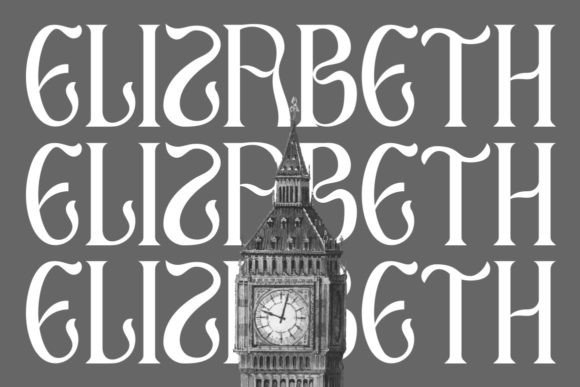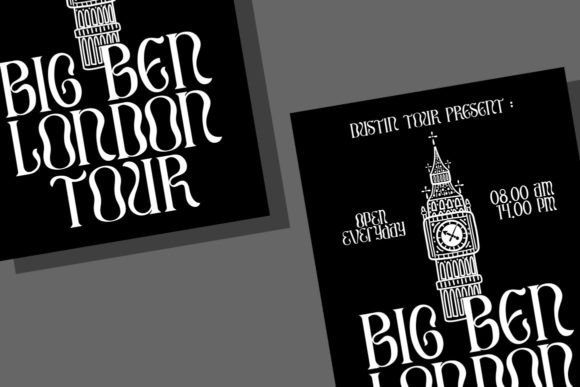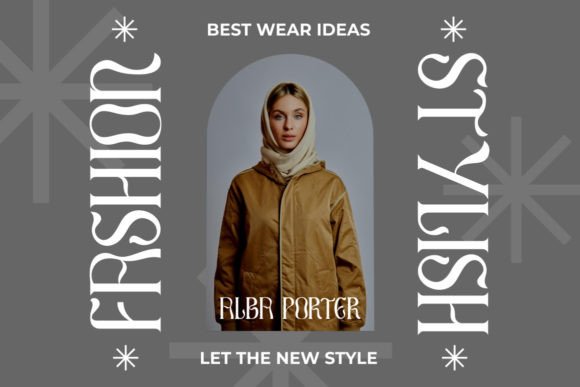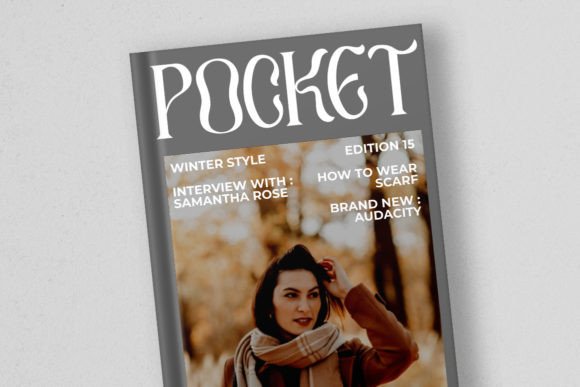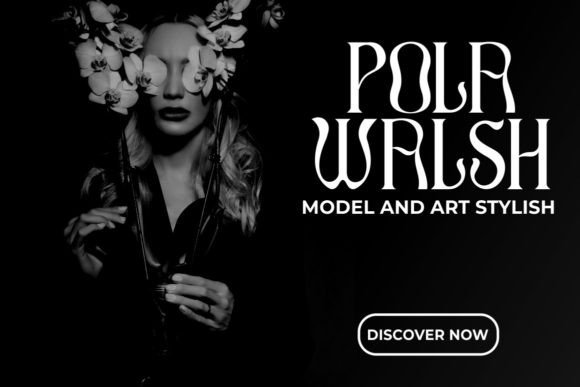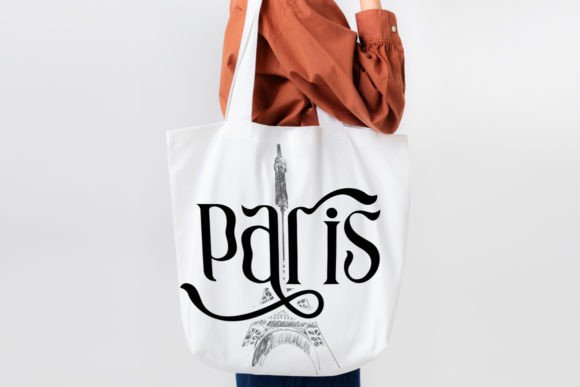
Introducing Carey Castle Font: Elevate Your Designs with Luxury and Style
Are you looking for a font that can add a touch of luxury and sophistication to your designs? Look no further than Carey Castle Font. This stylish and elegant display font is perfect for designers, crafters, and anyone looking to take their creations to the next level. With its versatility and ease of use, Carey Castle Font is ideal for a wide range of projects, from books and magazine covers to social media posts and invitations.
What Makes Carey Castle Font Special?
Carey Castle Font is a standout font that offers a unique combination of style, luxury, and functionality. Here are just a few features that make it a must-have for designers and crafters:
- Stylish and Luxurious Design: Carey Castle Font boasts a sleek and sophisticated design that’s perfect for creating high-end visuals. Its elegant lines and curves make it ideal for designs that require a touch of luxury and refinement.
- Versatile and Multi-Purpose: Whether you’re working on a book, magazine cover, social media post, or invitation, Carey Castle Font is the perfect choice. Its versatility makes it easy to use across different mediums and platforms.
- PUA Encoded for Easy Access: Carey Castle Font is PUA (Private Use Area) encoded, which means you can access all the glyphs and ligatures with ease. This feature makes it simple to get the most out of the font and create stunning designs.
Use Carey Castle Font for a Wide Range of Projects
With Carey Castle Font, the possibilities are endless. Here are just a few ideas to get you started:
- Books and E-books: Add a touch of luxury to your book covers or interior designs with Carey Castle Font. Its elegant design makes it perfect for fiction and non-fiction books, as well as children’s books and more.
- Magazine Covers and Editorials: Make a statement with your magazine covers or editorial designs using Carey Castle Font. Its stylish and sophisticated design is sure to grab attention and leave a lasting impression.
- Social Media Posts: Elevate your social media game with Carey Castle Font. Use it to create stunning graphics, quotes, and more that are sure to engage your audience and drive results.
- Invitations and Events: Add a touch of luxury to your invitations, wedding stationery, or event branding with Carey Castle Font. Its elegant design makes it perfect for formal and informal events alike.
Why Choose Carey Castle Font?
With so many fonts on the market, why choose Carey Castle Font? Here are just a few reasons why designers and crafters love this font:
- Unique and Exclusive Design: Carey Castle Font offers a unique and exclusive design that’s sure to make your designs stand out from the crowd.
- High-Quality and Professional: This font is designed with high-quality and professionalism in mind. Its elegant lines and curves make it perfect for designs that require a touch of sophistication.
- Easy to Use and Customize: With PUA encoding, Carey Castle Font is easy to use and customize. Access all the glyphs and ligatures with ease and create stunning designs in no time.
In conclusion, Carey Castle Font is a stylish and luxurious display font that’s perfect for designers, crafters, and anyone looking to elevate their designs. With its versatility, ease of use, and elegant design, it’s ideal for a wide range of projects, from books and magazine covers to social media posts and invitations. So why wait? Add Carey Castle Font to your creations today and take your designs to the next level!